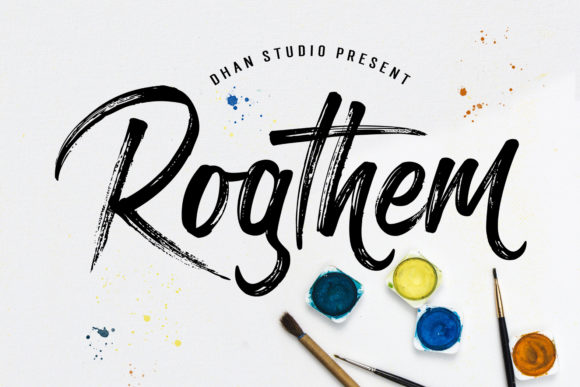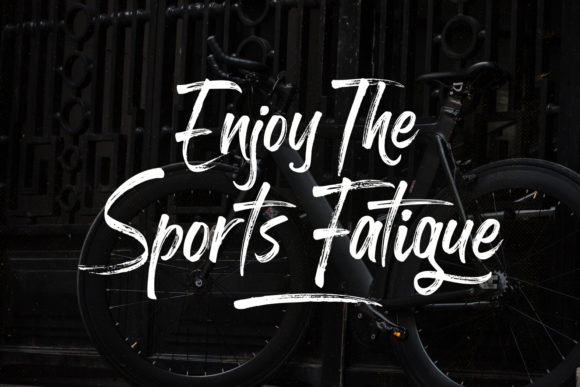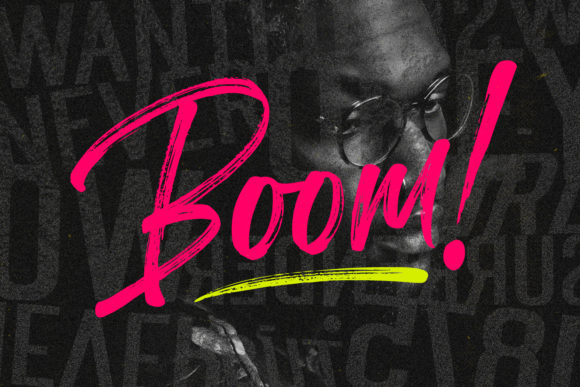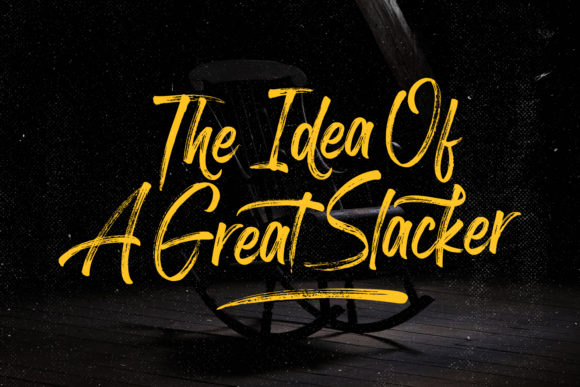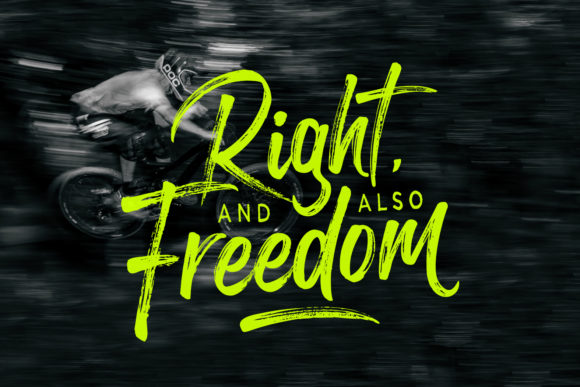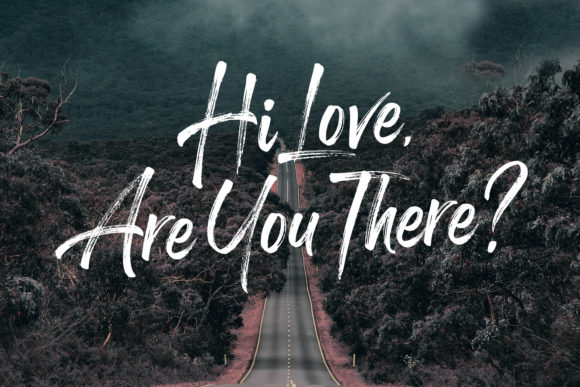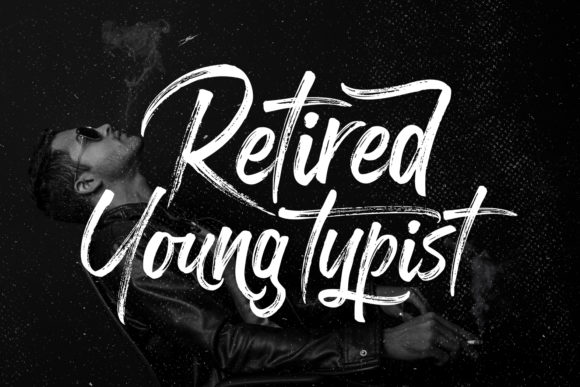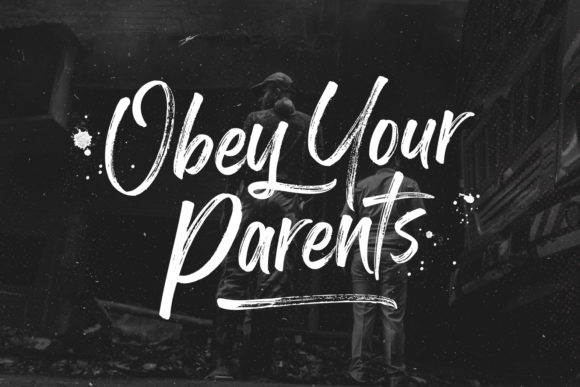
HomeScript FontsRogthem Font Script Fonts Rogthem Font FacebookXPinterestWhatsApp Rogthem Font Poster 2 Rogthem Font Poster 3 Rogthem Font Poster 4 Rogthem Font Poster 5 Rogthem Font Poster 6 Rogthem Font Poster 7 Rogthem Font Poster 8 About Rogthem Font Rogthem is a beautifully textured brush font with a bold vibe. It will add an urban twist to any creative project! DOWNLOAD ON CREATIVE FABRICAThis font is sold and delivered by Creative Fabrica. Font Canyon may earn a commission if you buy through this link. People also explored Modeliesta Font Sinterklas Font Monday Rainbow Font Madelyn Leotholf Font Summeria Font Little Sooner Font Cartoonations Font Easterin Font 316 0 TagsRogthem Font Previous articleKelly & Ryan FontNext articleCreative Twister Font LEAVE A REPLY Cancel reply Comment: Please enter your comment! Name:* Please enter your name here Email:* You have entered an incorrect email address! Please enter your email address here Website: Save my name, email, and website in this browser for the next time I comment. Personal Use Free Lazy Sunday Personal Use Free Read more about this font Jellia Personal Use Free Read more about this font Helsinki Personal Use Free Read more about this font Dakwart Letter Personal Use Free Read more about this font BLOG Modern Sans-Serif Fonts That Brands Love in 2025 In 2025, modern sans-serif fonts remain a top choice for brands looking to project clarity, professionalism, and... 5 Fonts That Will Dominate Design Trends in 2026 Best Fonts for T-Shirt Design – Top 2025 Picks Fonts That Capture the Spirit of New York City